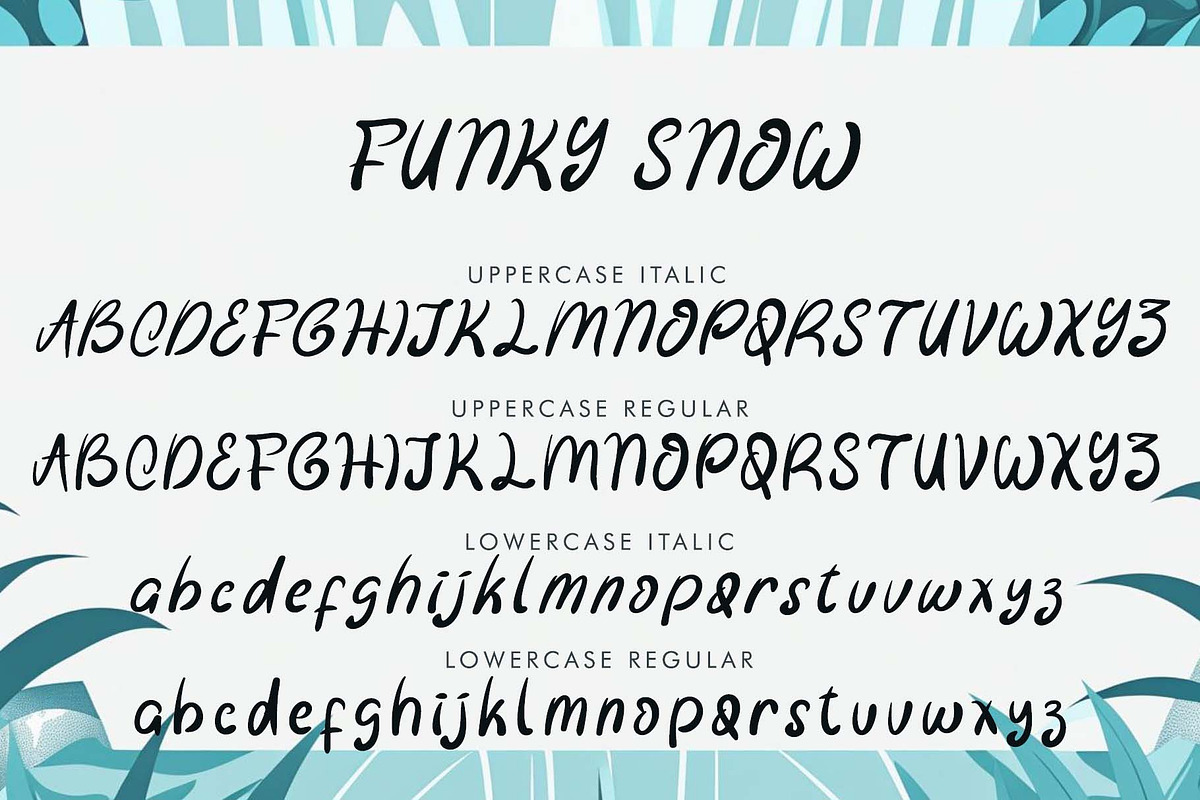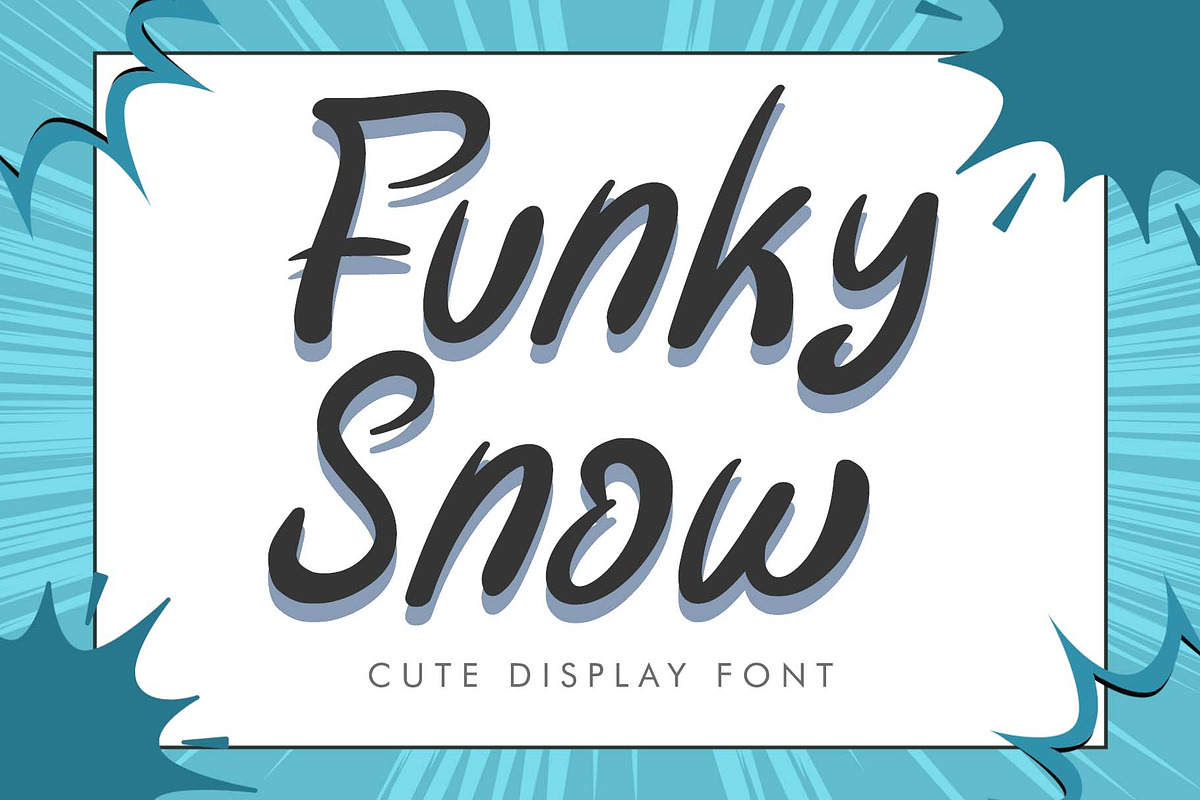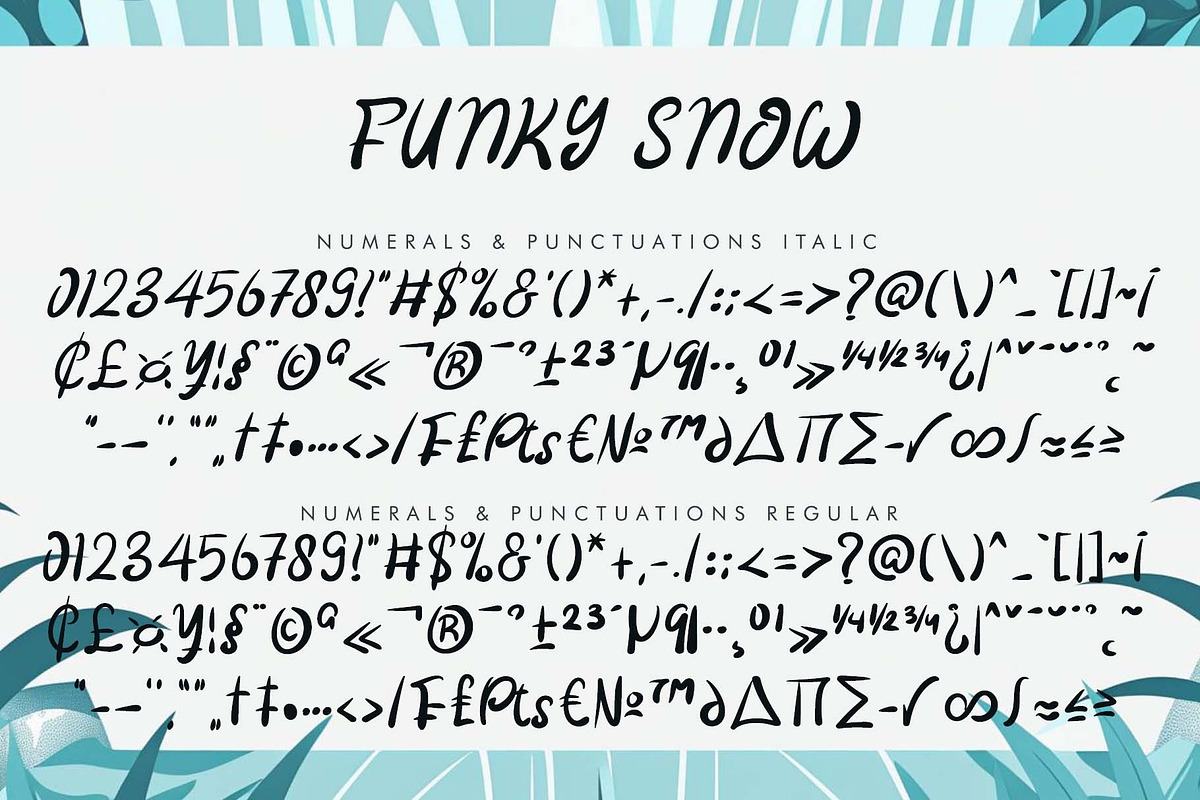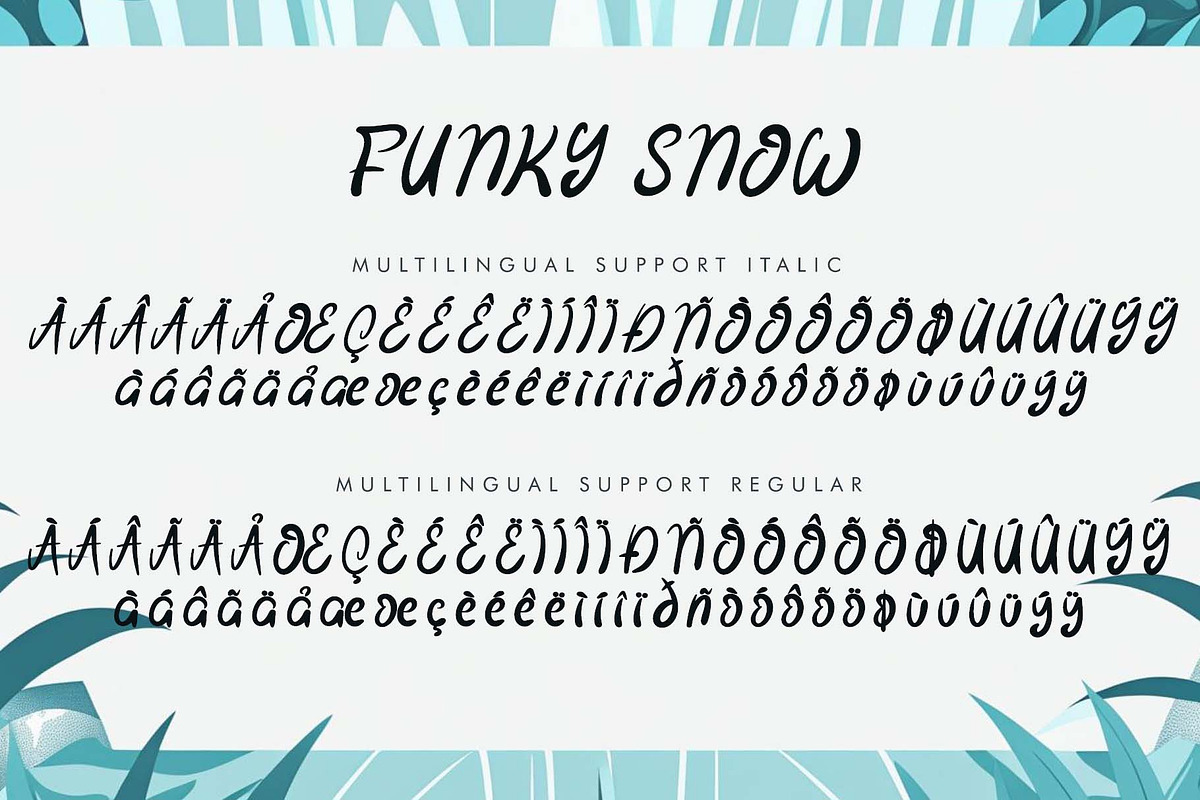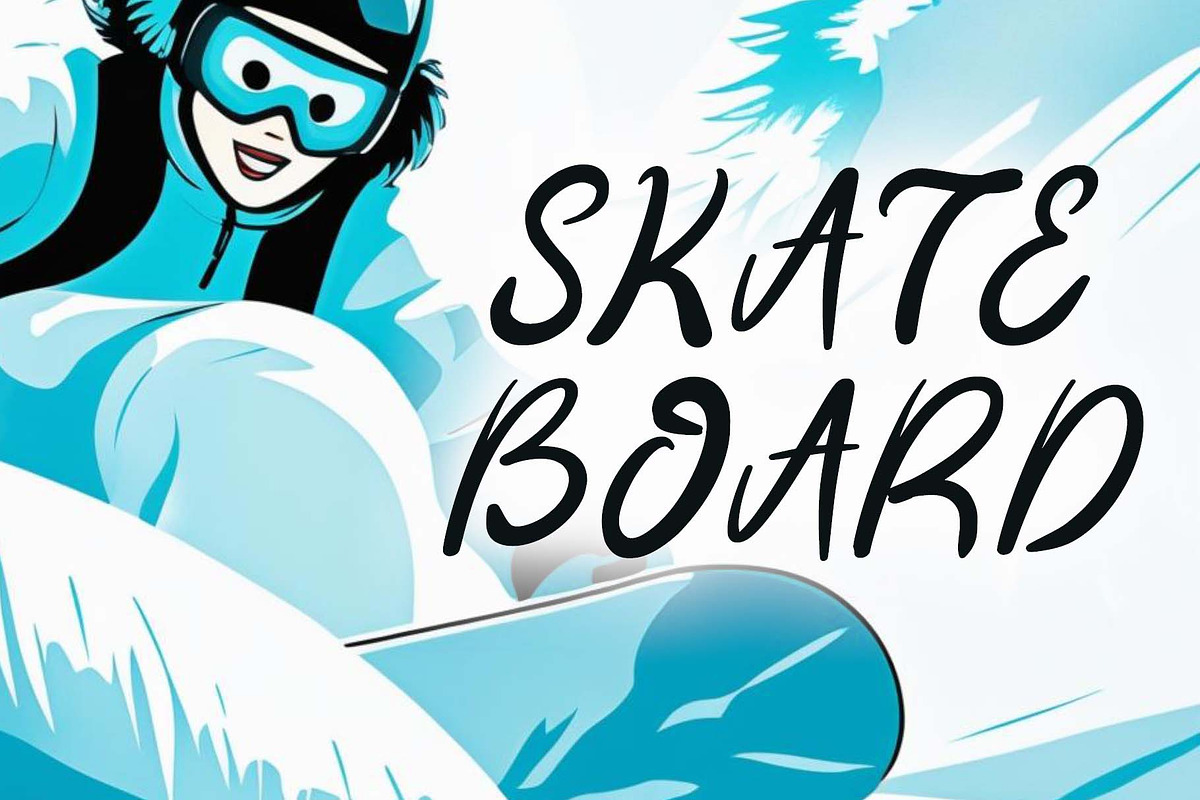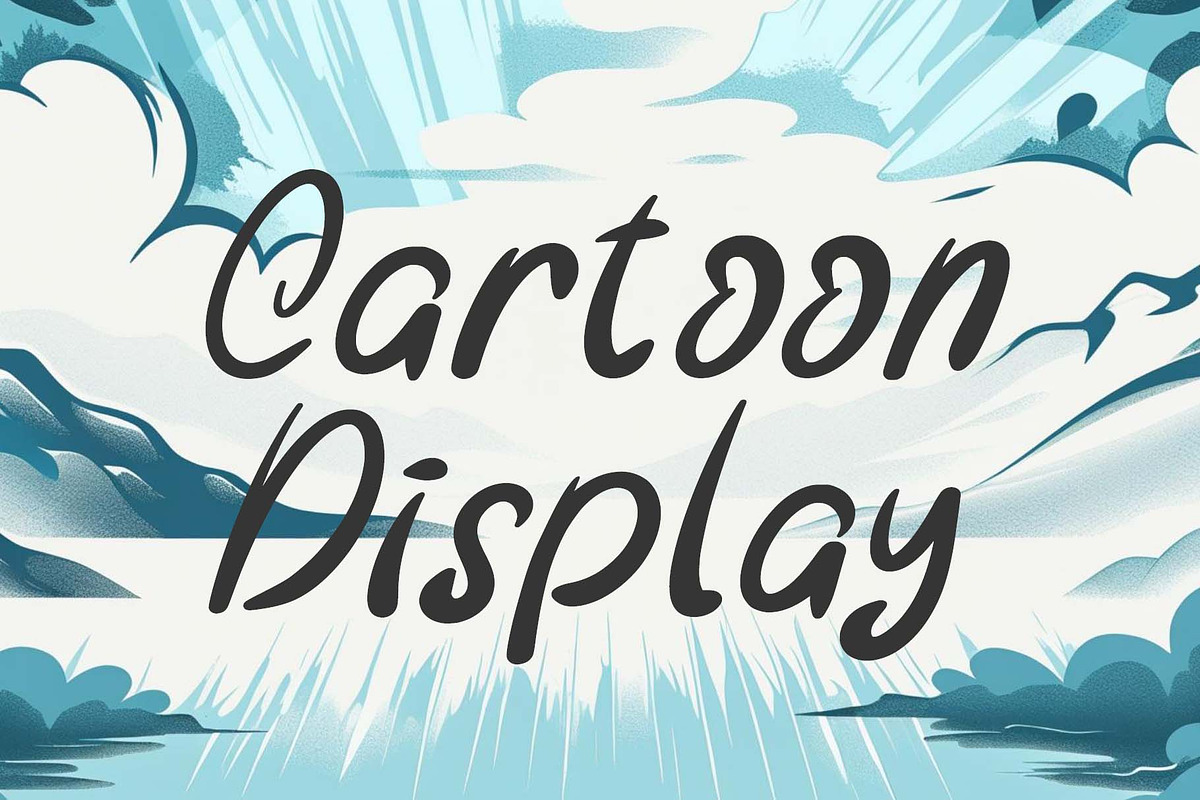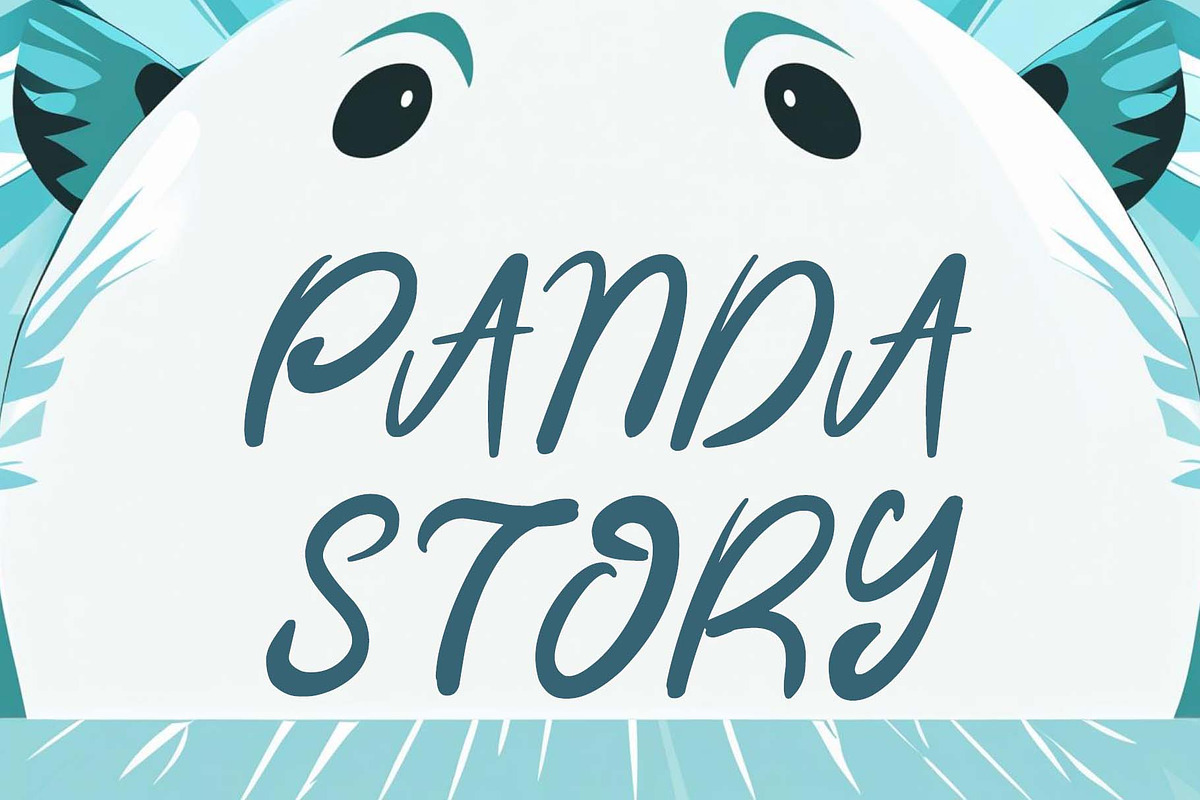
Funky Snow
"Funky Snow" is a unique display font. It features regular and italic styles. It features uppercase and lowercase letters, numerals, punctuations, and multilingual support. It's perfect for Christmas, Thanksgiving, winter, Easter, spring, Valentine's Day, cartoons, summer, holidays, gifts, photography, YouTube, vacations, logos, stickers, weddings, magazines, and more.